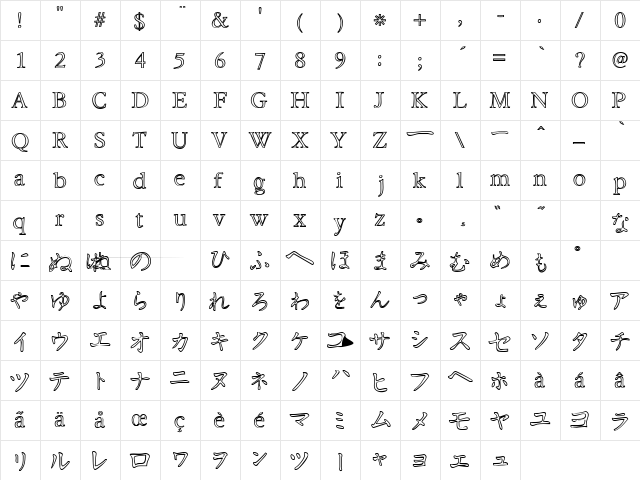
Hira & Katakana W Hollow
Design Context for Hira & Katakana W Typeface
Hira & Katakana W is a composed and adaptable typeface that performs quietly and consistently across a wide range of design contexts.